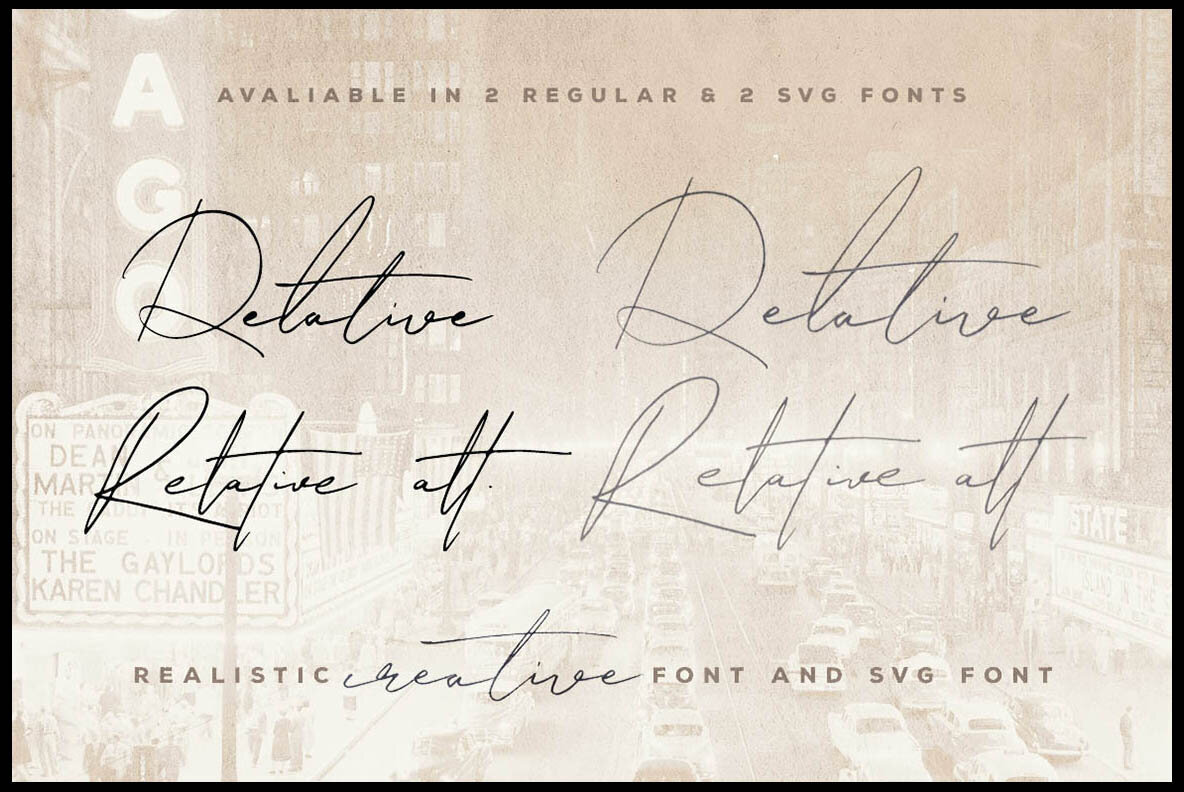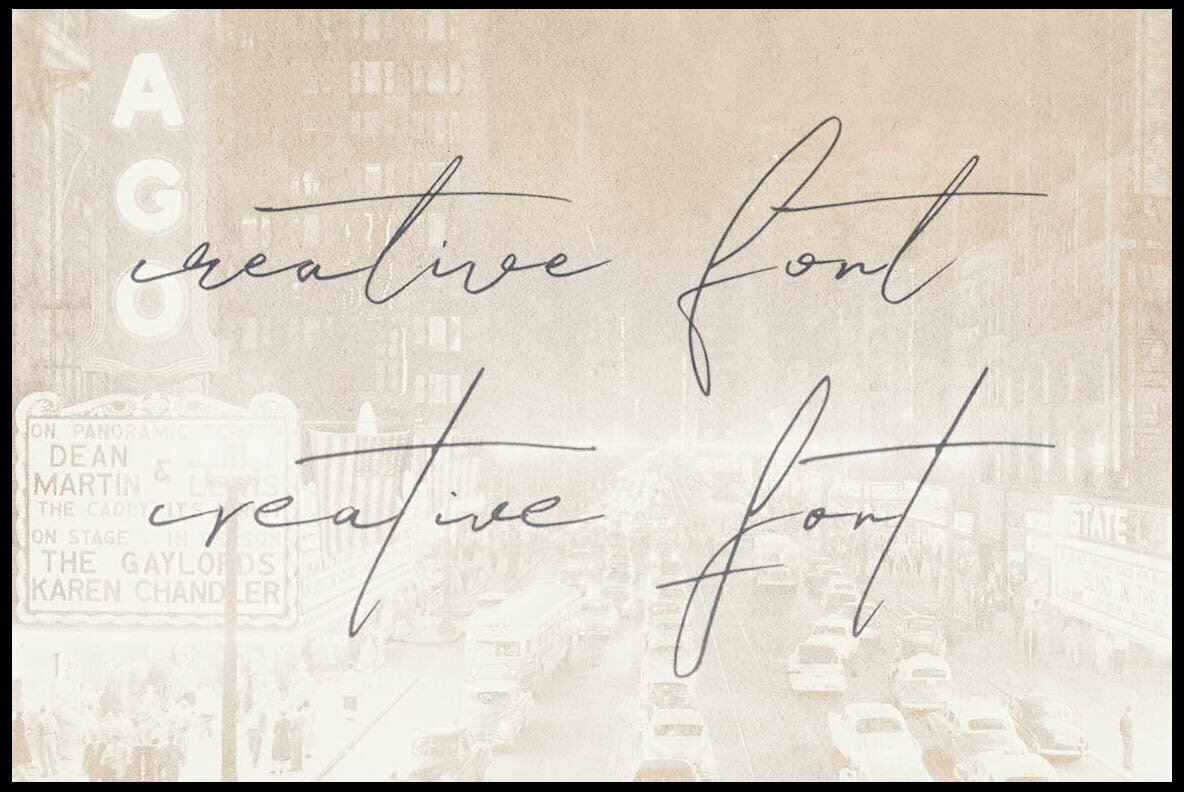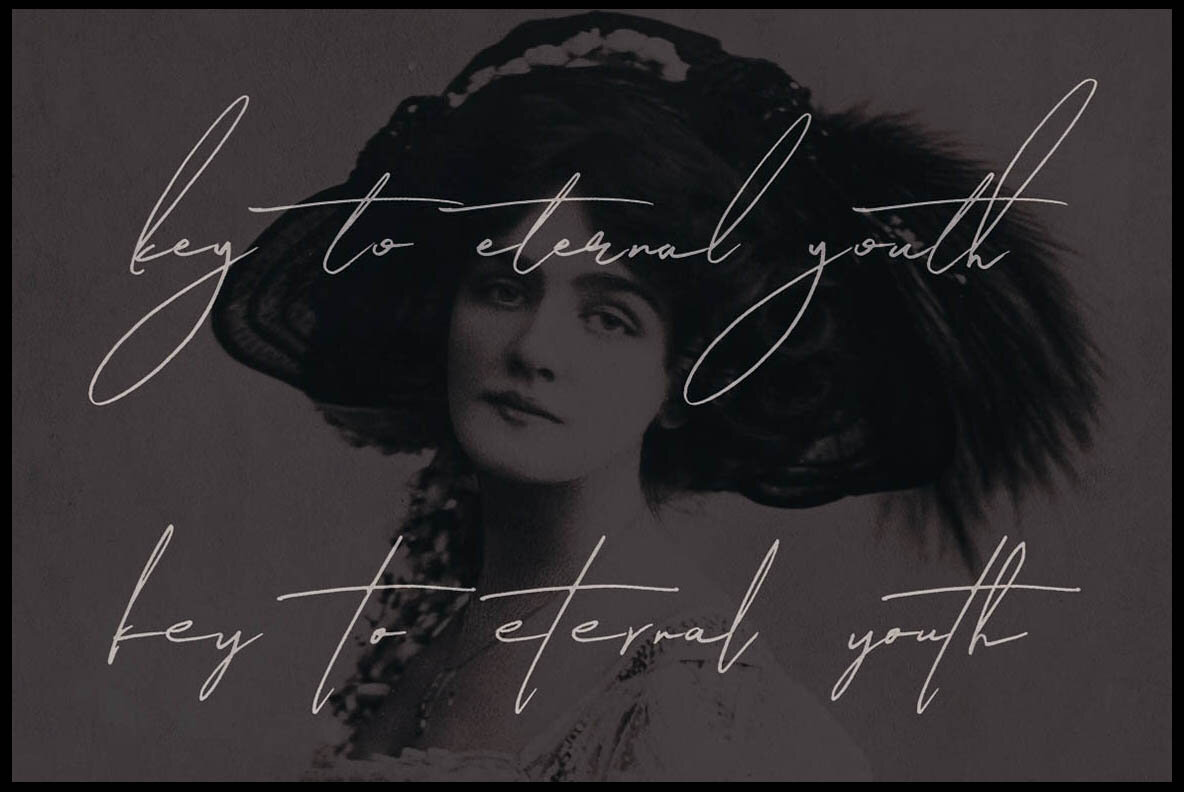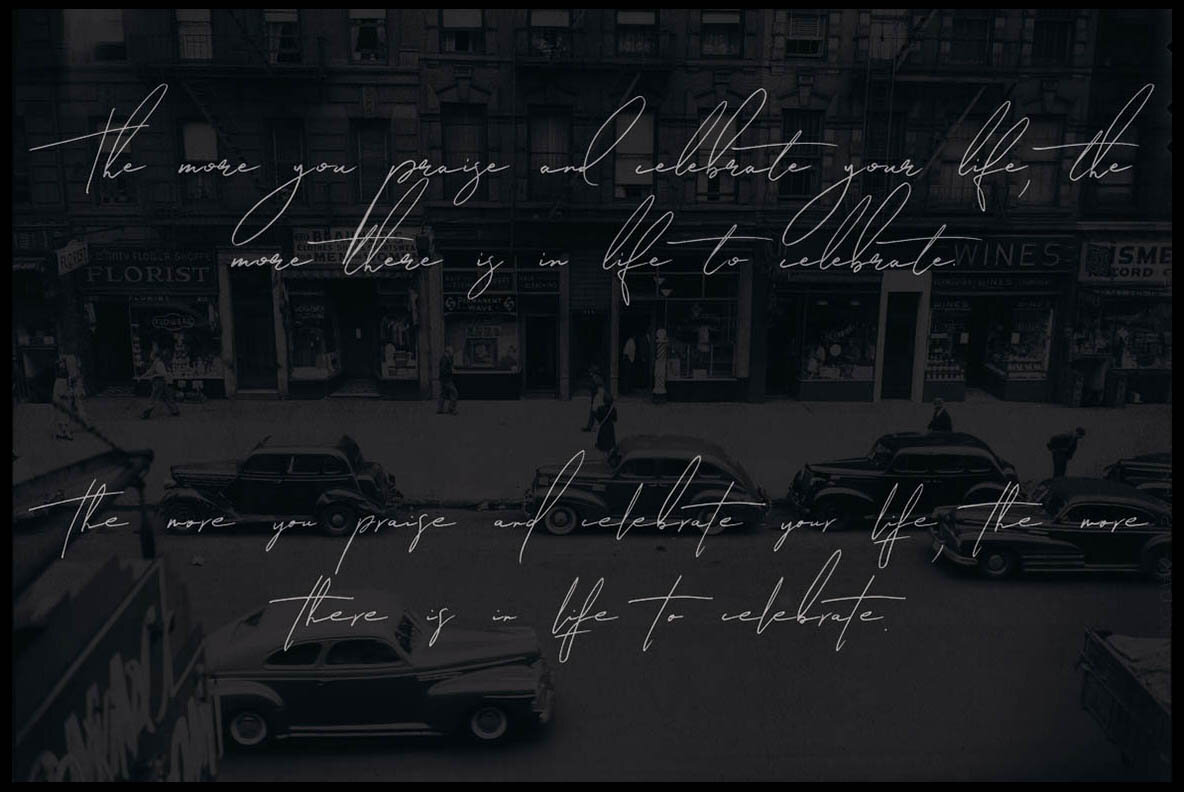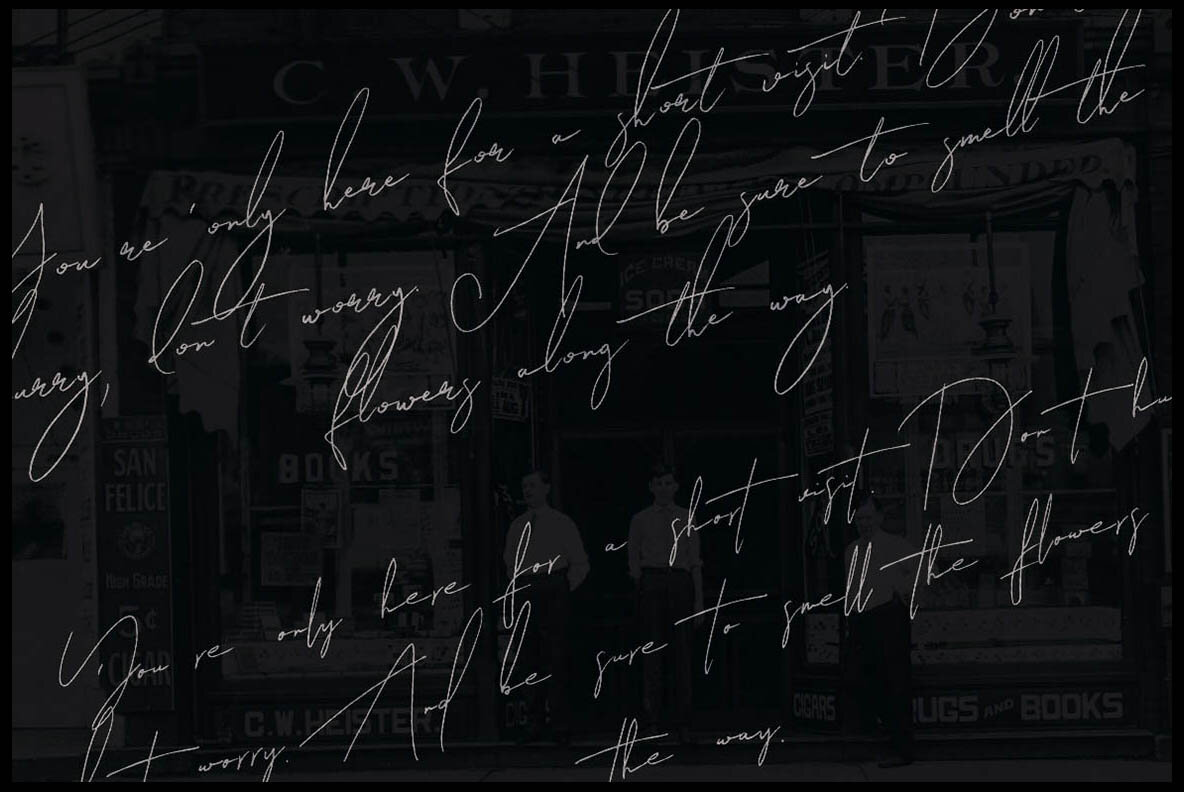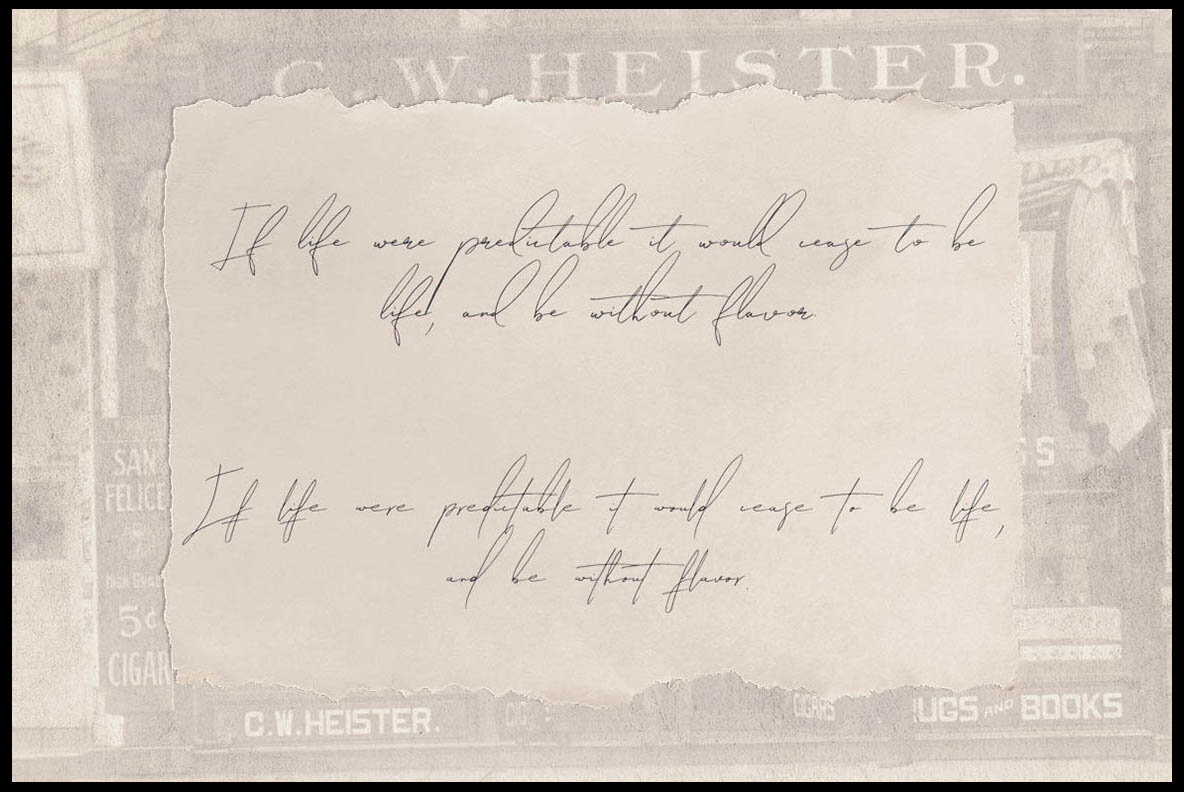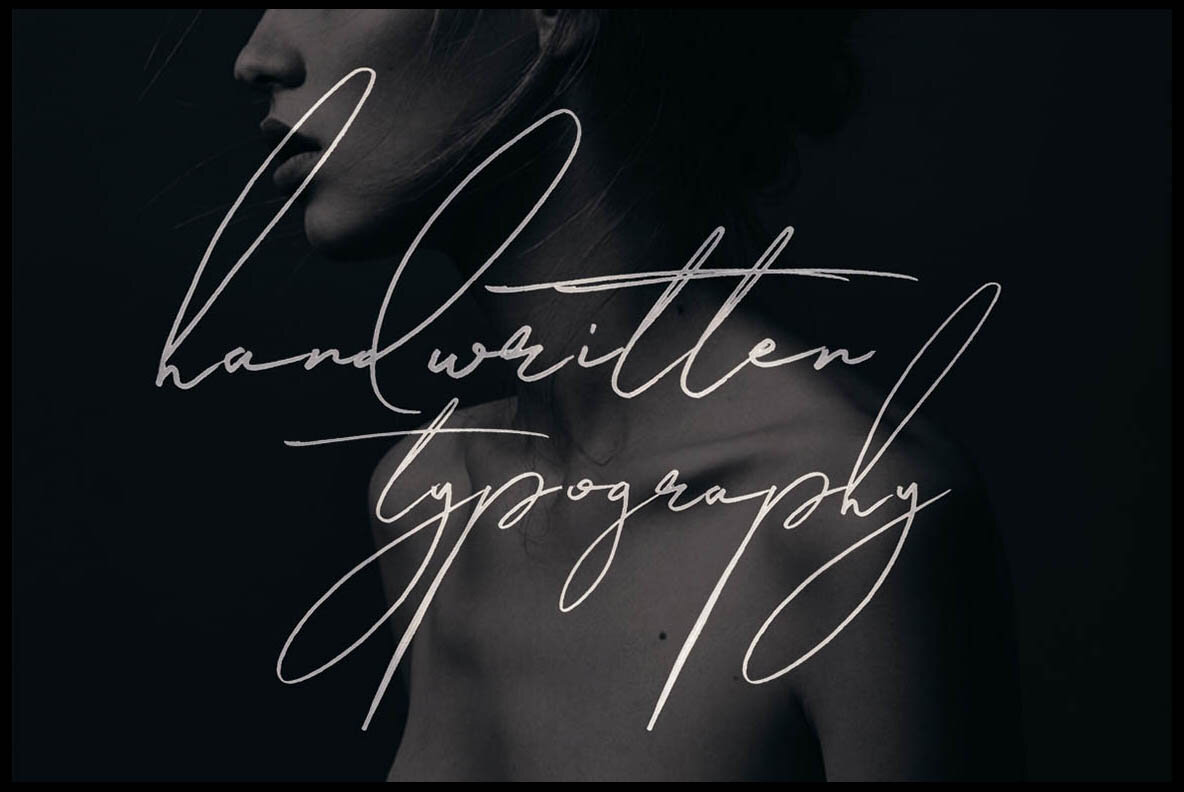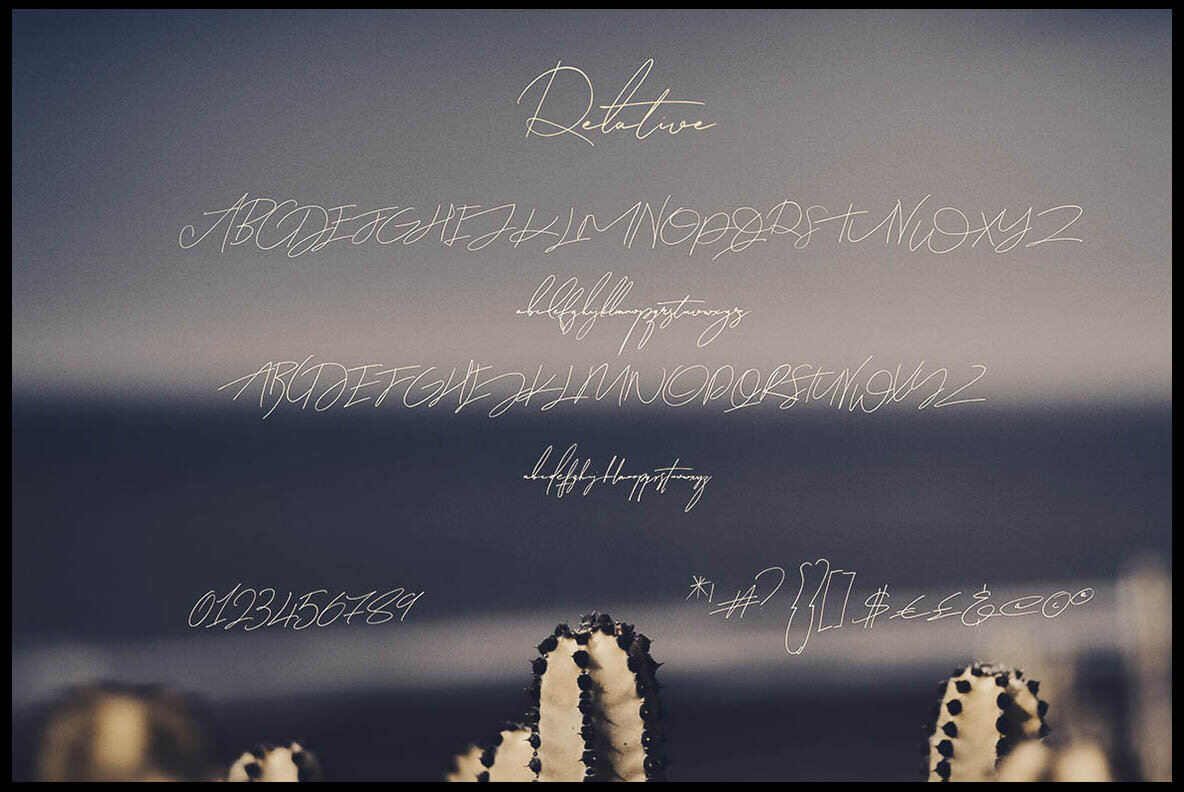
Relative Font
Relative is a dynamic handwritten and grunge-style script font, perfect for adding a unique touch to vintage, grunge, or artistic projects. Its raw, textured aesthetic brings character to any design. This font utilizes new technology, specifically designed for compatibility with Photoshop CC 2017+, Illustrator CC 2018, and certain Mac applications. To optimize your use of this font, please follow these guidelines:Relative by Peter Olexa: Handwritten Grunge Display Font